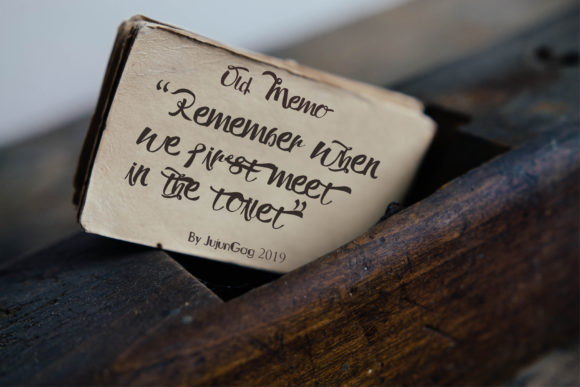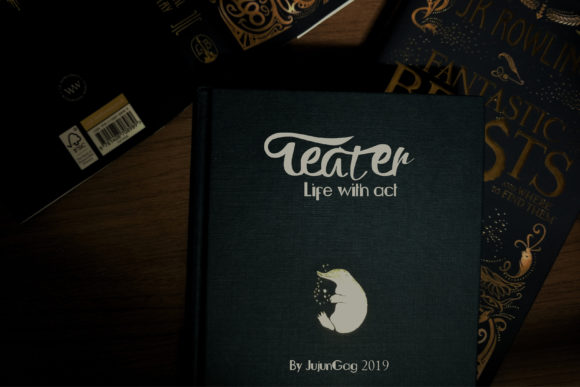
The Perfect Match: Unleashing Your Creativity with Better Font
There’s that moment when the perfect idea hits you, and everything falls into place. You’re brainstorming for a new project, and the words start flowing. You know exactly what you want to convey – the tone, the style, the emotion. But, there’s one crucial element that can make or break your design: the font. That’s where Better Font comes in – a truly unique handwritten font designed to elevate your creative vision.
| 👤 Author | Nerdstudio |
Whether you’re a seasoned designer or just starting out, Better Font is a valuable addition to your toolkit. Its versatility and expressiveness allow you to convey complex emotions and ideas in a single stroke. With Better Font, you can add a personal touch to your projects, making them truly stand out in a crowded market.
Designer Review: Better Font
Overall, I’m impressed with Better Font. It’s a solid addition to any design project. Here’s what I like about it:
- ✨ Beautiful typography: The font’s elegant curves and balanced proportions make it a joy to work with.
- ✨ Versatility: Better Font works well for both body text and headings, and its high legibility ensures it’s easy to read on various devices.
- ✨ Customization options: The font comes with a range of weights, styles, and sizes, giving designers the flexibility to tailor it to their project’s needs.
However, I do have a few reservations:
- ⚠️ Limited character set: While the font includes a wide range of Latin characters, it’s not comprehensive when it comes to languages like Chinese or Arabic.
- ⚠️ Limited support for older browsers: As with many modern fonts, Better Font may not display correctly in older browsers or operating systems.
Despite these limitations, I think Better Font is a great choice for designers looking for a high-quality, versatile font. With its beautiful typography and customization options, it’s a great addition to any project.
Use Better Font for:
- Headings and titles to create a professional look.
- Body text to improve readability.
- Logos and branding materials to create a consistent visual identity.